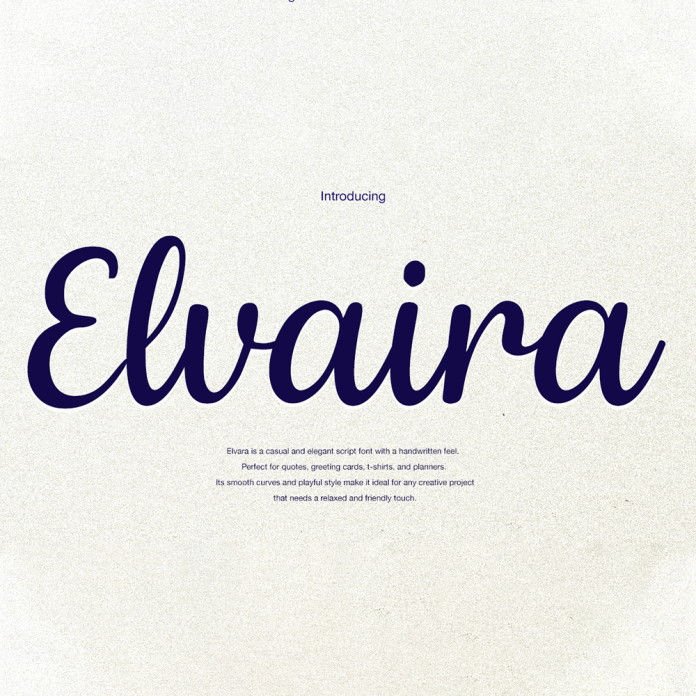
Elvara is a charming casual handwriting that combines a flowing script style with a clean and minimalist style. It's the perfect match for elegant branding, wedding invitations, product packaging, inspirational quotes, and social media posts.